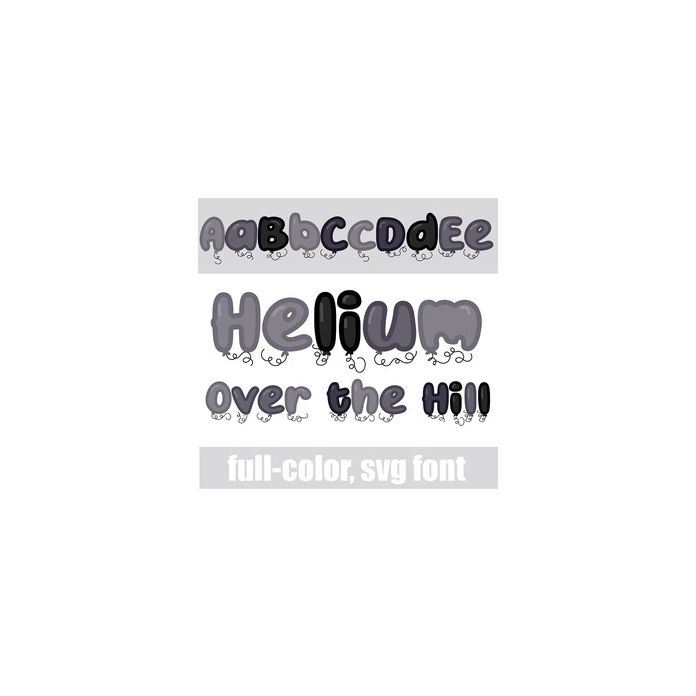
This full-color font features black and dark gray balloons that is perfect for Halloween or an over the hill celebration. There is an alt case w/ additional colors you can access through your system or Silhouette's glyph map.